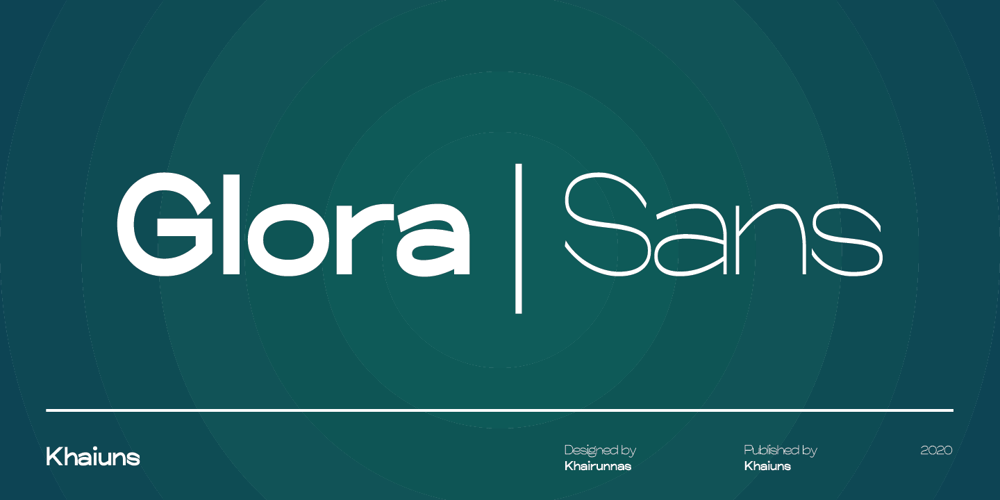
Glora Sans Font Family was designed by Khair Unnas and published by Khaiuns. Glora Sans contains 6 styles and family package options. Glora is a modern sans serif with a soft touch made at Warkop for fun. Glora has strong upper and lowercase letters that are subtle and effective in a variety of designs for your project. This font is very good in my opinion, you must think I praise my own work, you are not mistaken I also think the same as you.It is perfect for graphic design and any display use. It can easily work for web, signage, corporate as well as for editorial design.Have fun designing with the Glora font, because I have the quotes “don’t forget to be happy while you’re alive”Thanks for use this font ~ Khaiuns